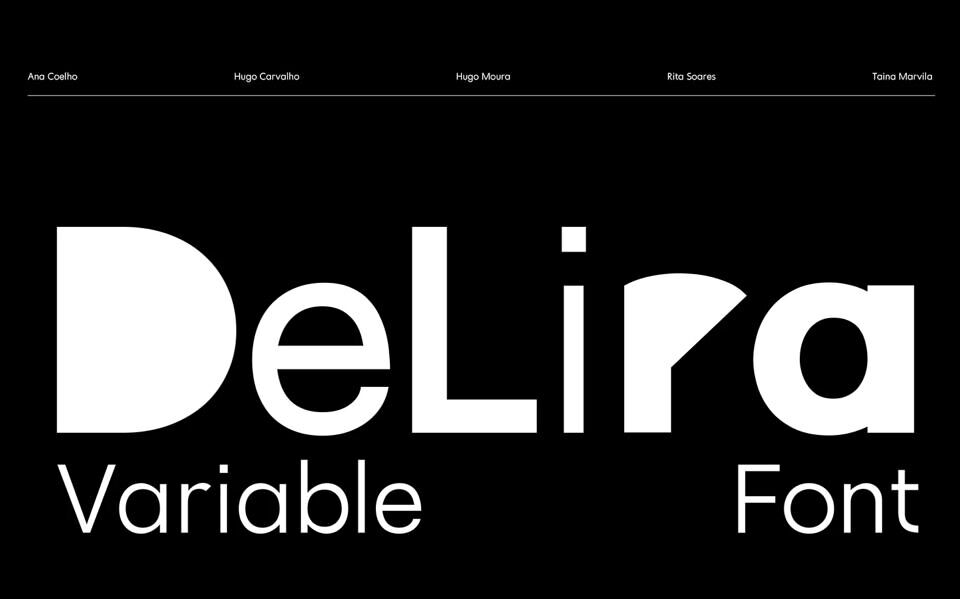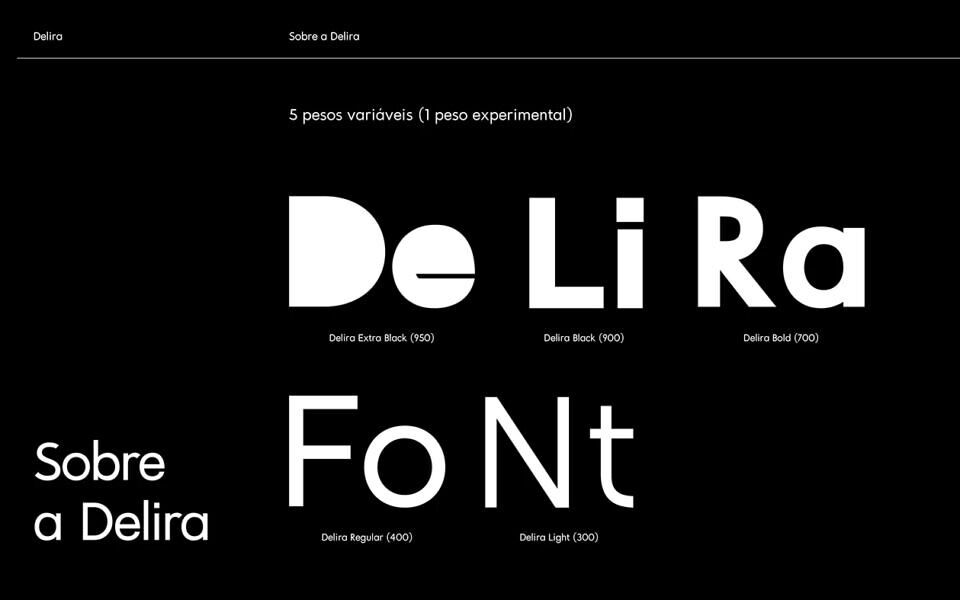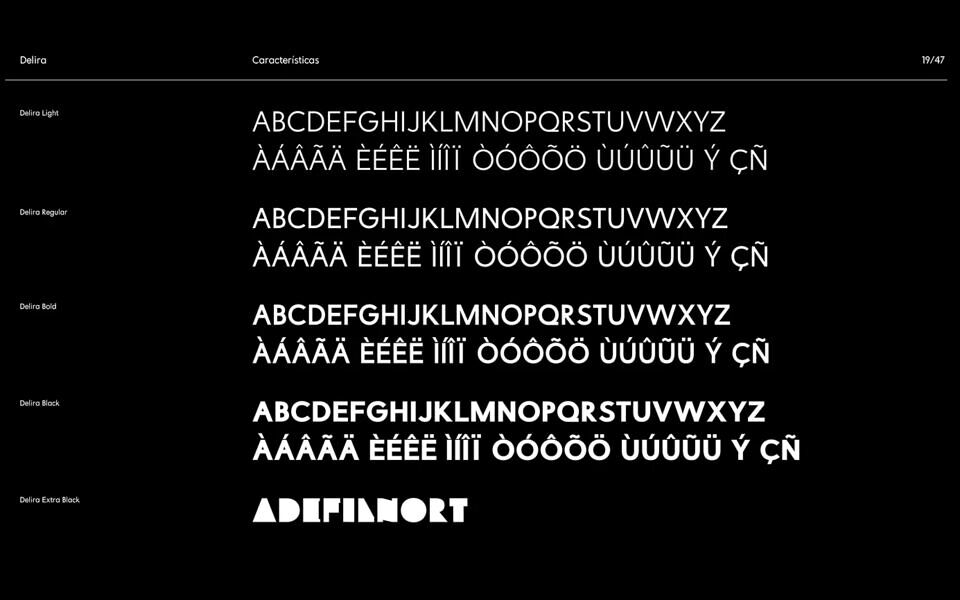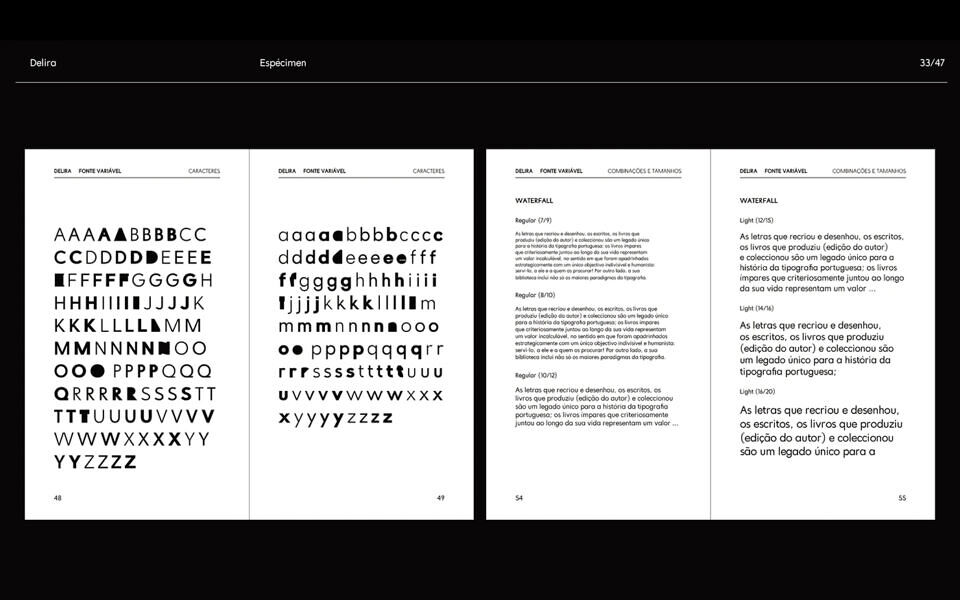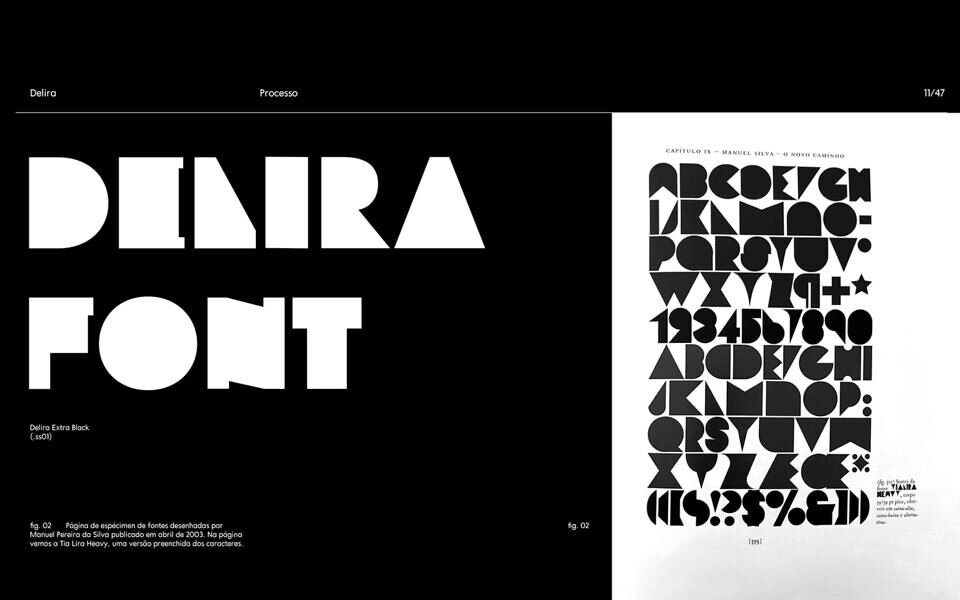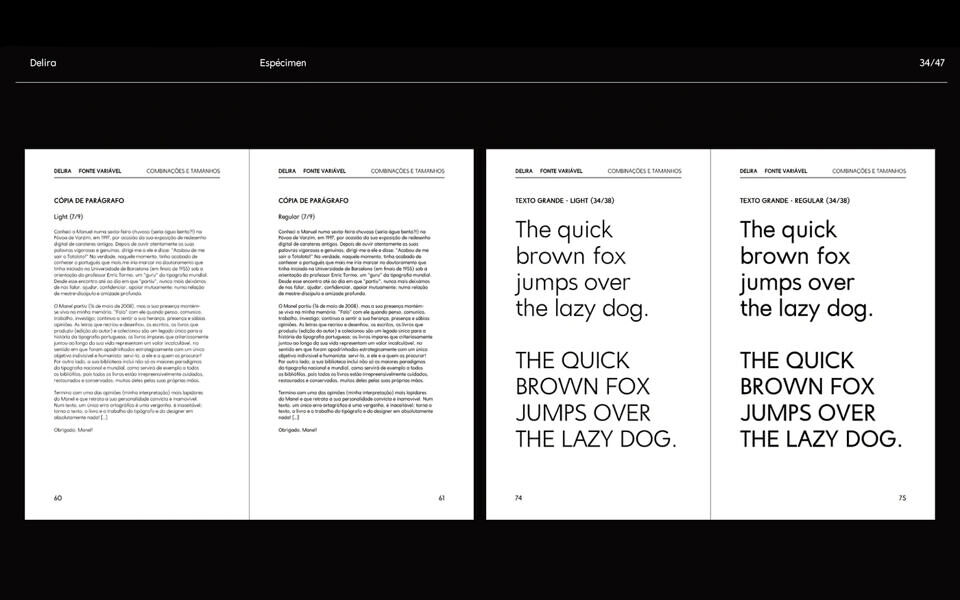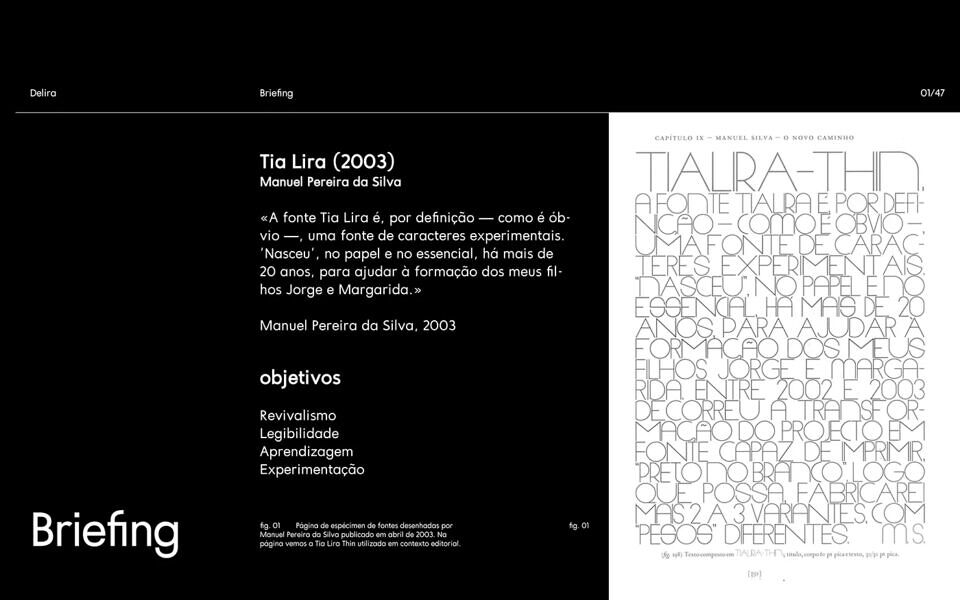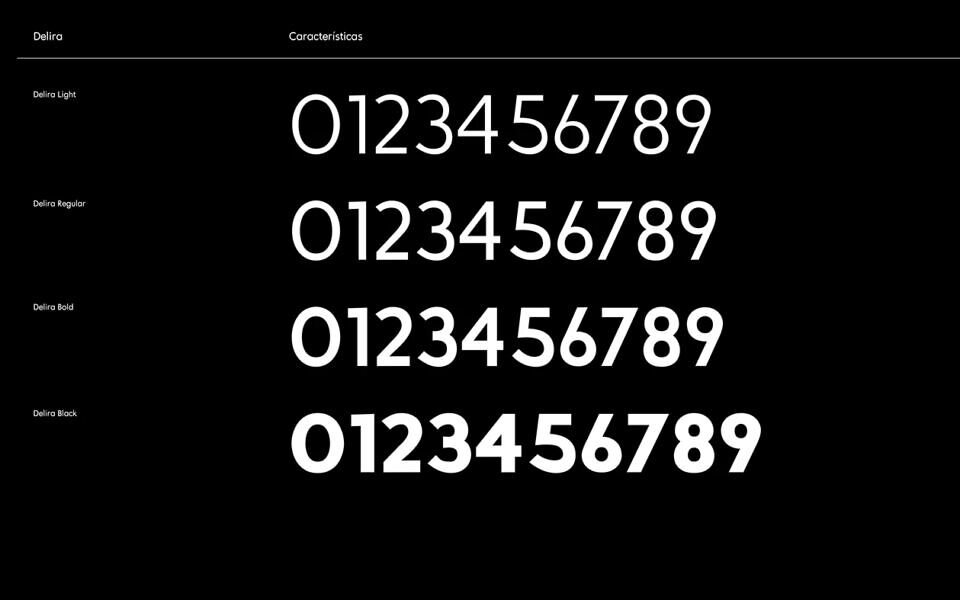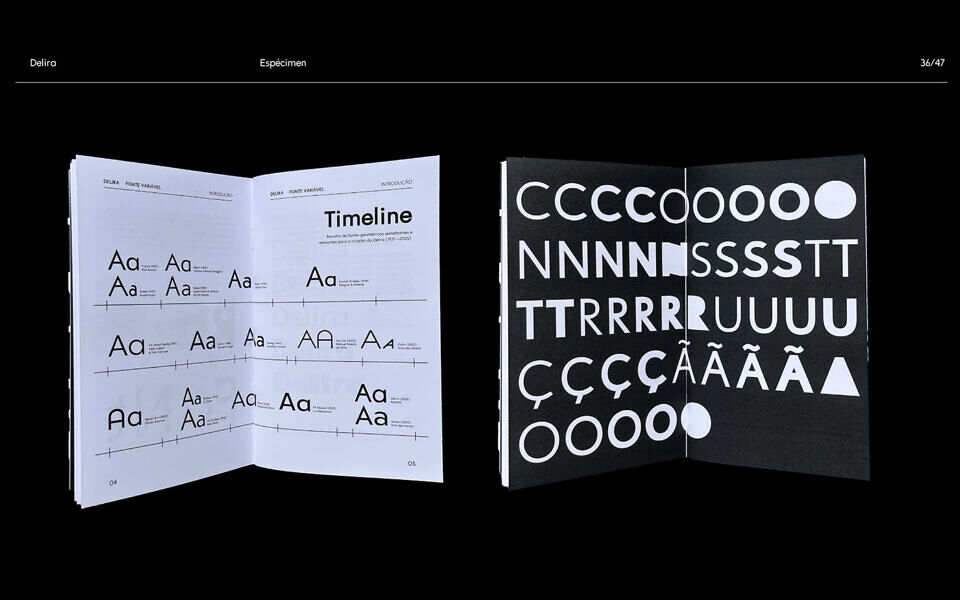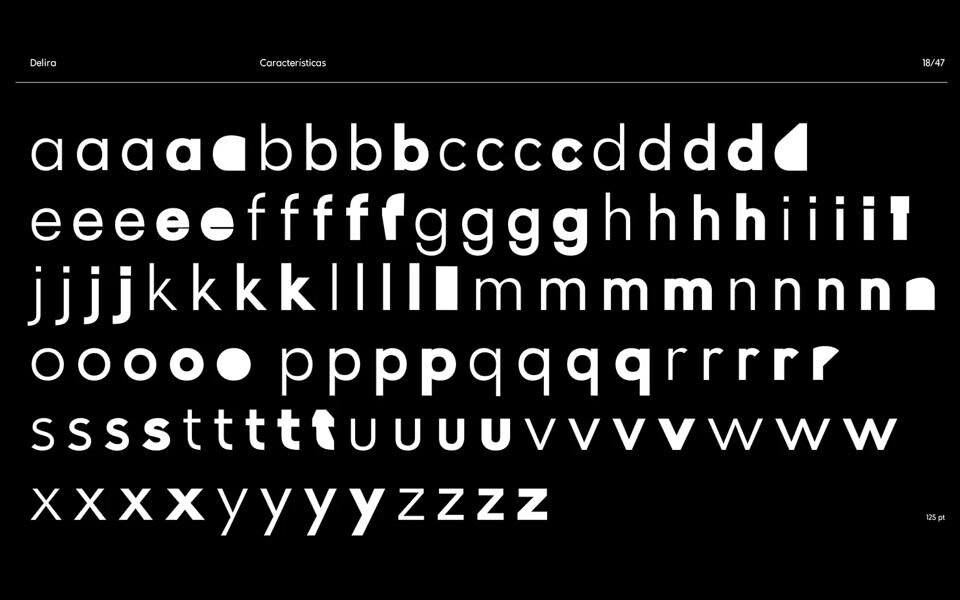
Delira is a modern revival of the experimental Tia Lira typeface, originally crafted by Manuel Pereira da Silva. Redesigned by Hugo Carvalho, Hugo Moura, Ana Coelho & Rita Soares, with guidance from Pedro Amado through the University of Porto’s Master’s program, it transforms an expressive, high‑contrast display font into a refined editorial typeface.
It retains its bold, unconventional proportions and striking terminals, yet improves structure and legibility—especially in body text between 8–12 pt. Delira brings a perfect blend of visual character and reading comfort.